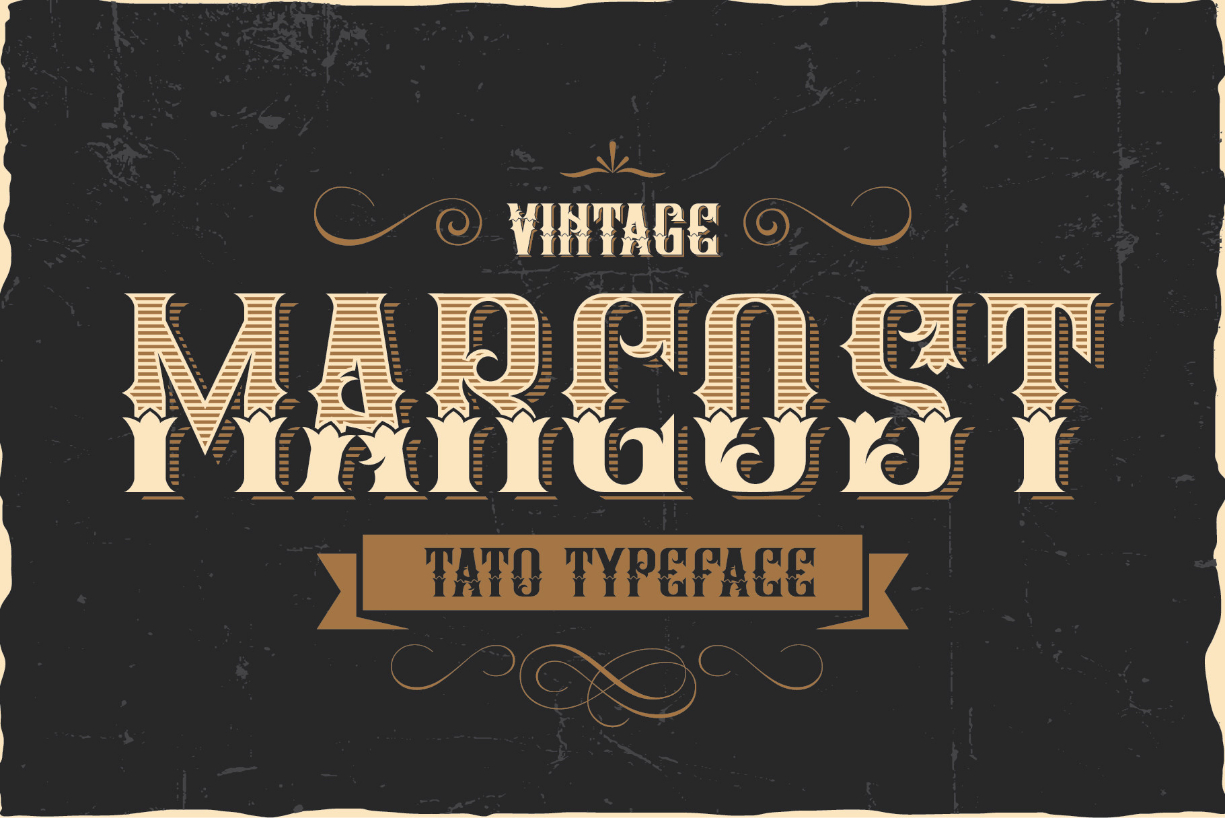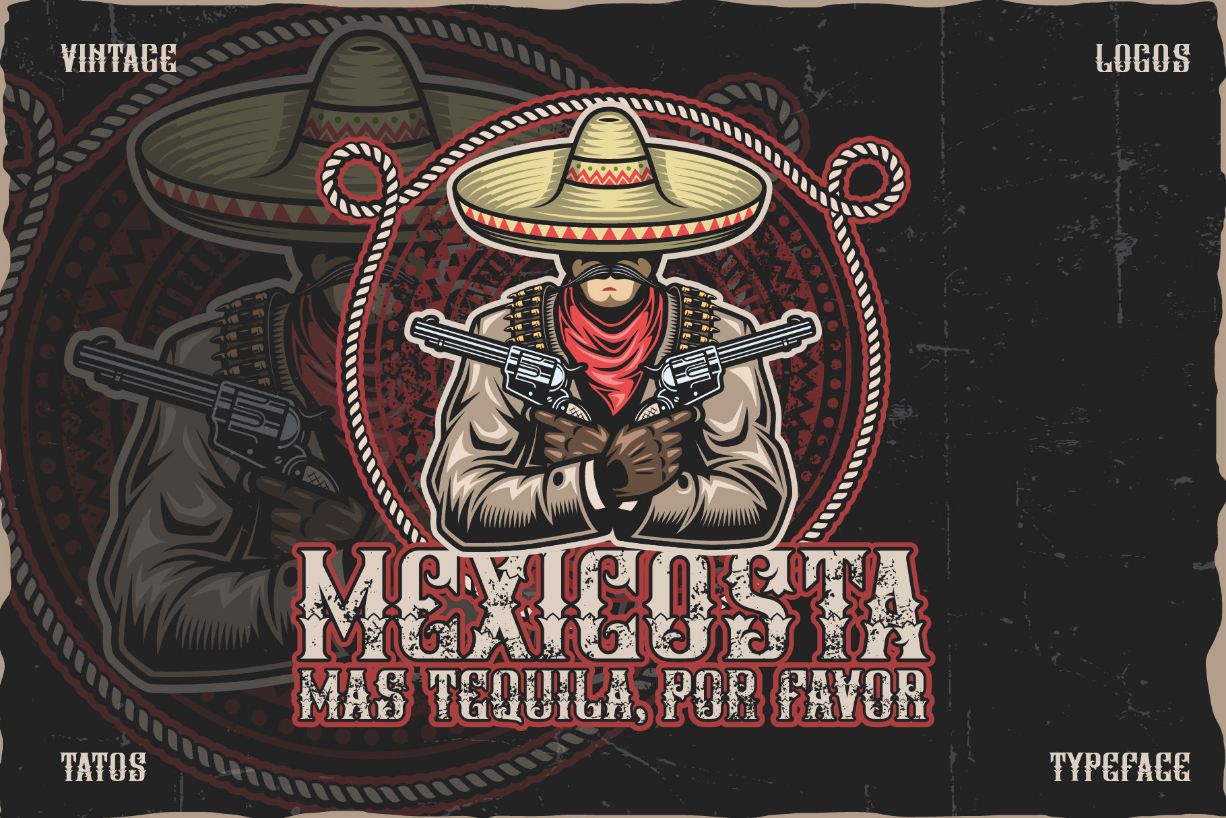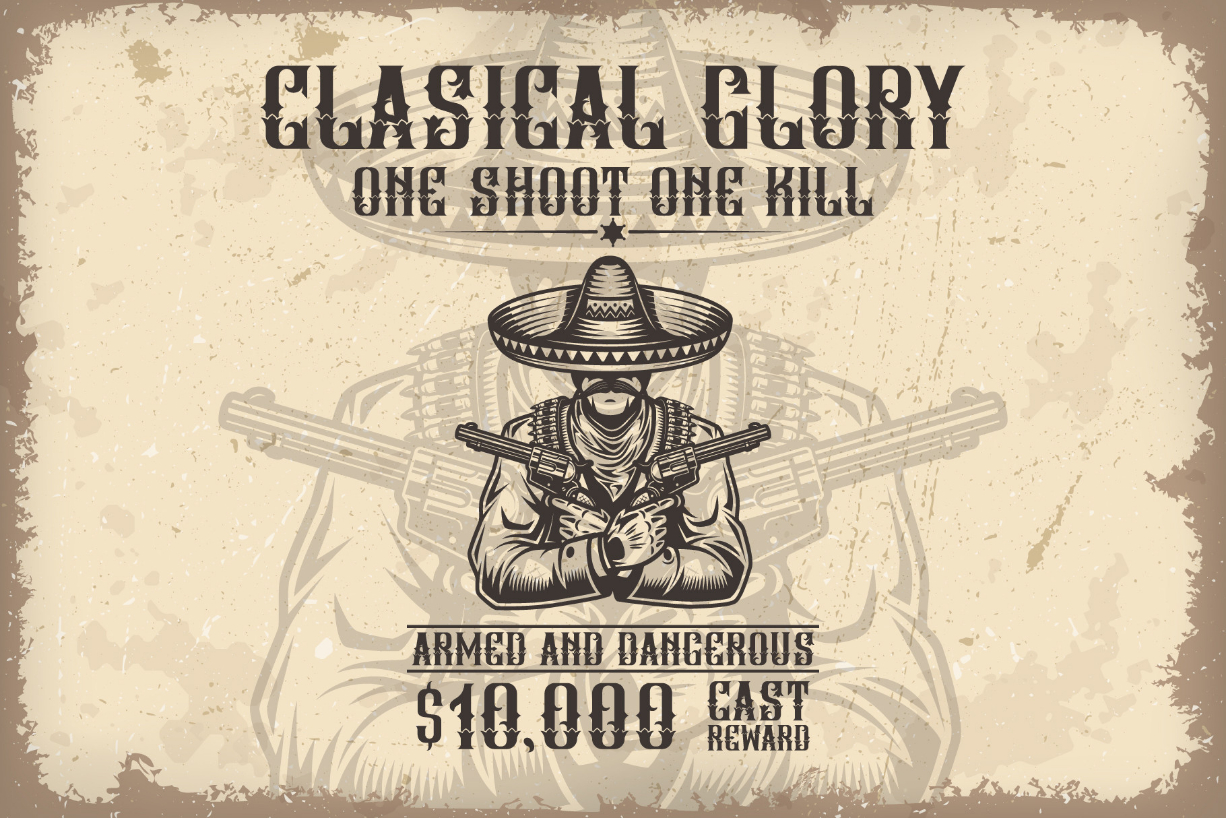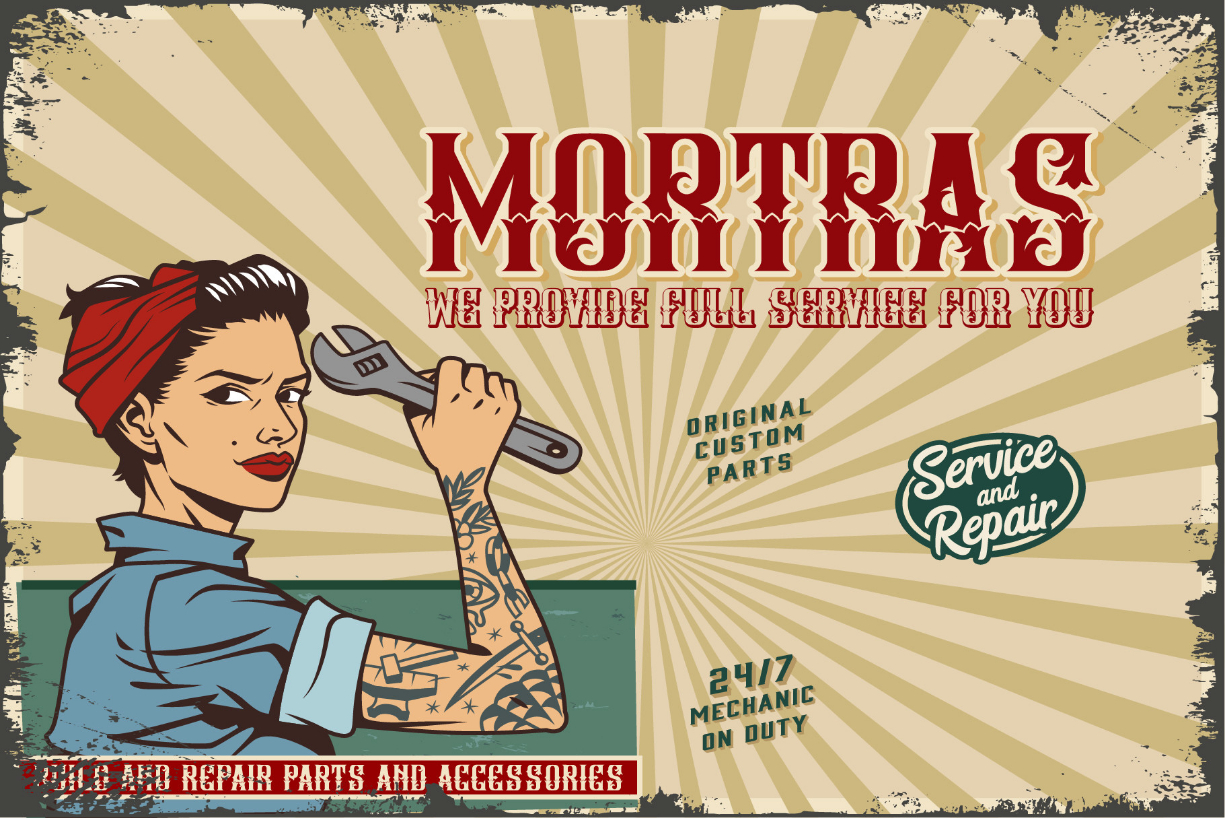
Marcost Font
About Marcost Font
Marcost is a distinct blackletter font. This font is imposing and features uniquely shaped letters, and as a result, it will easily match a wide range of creations that require a distinct touch.